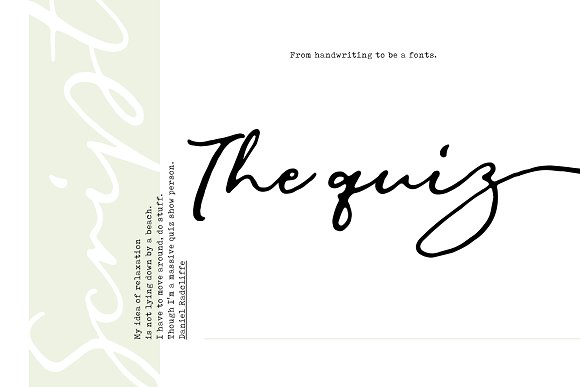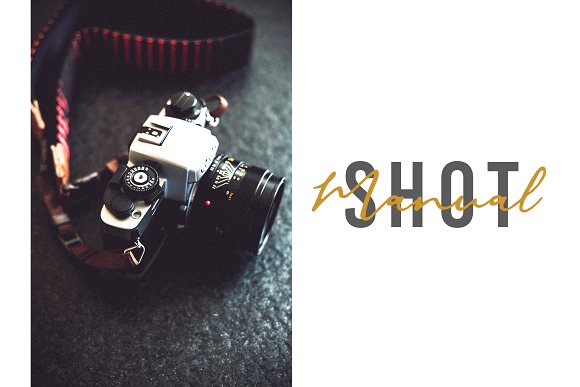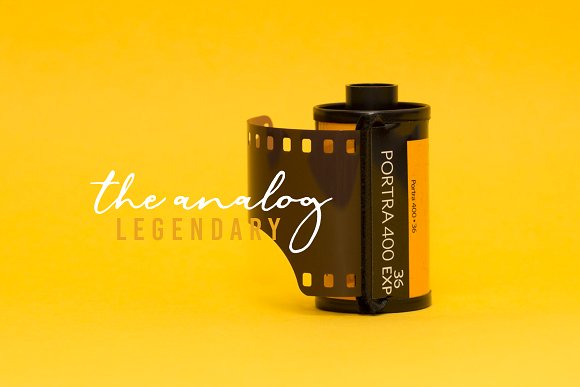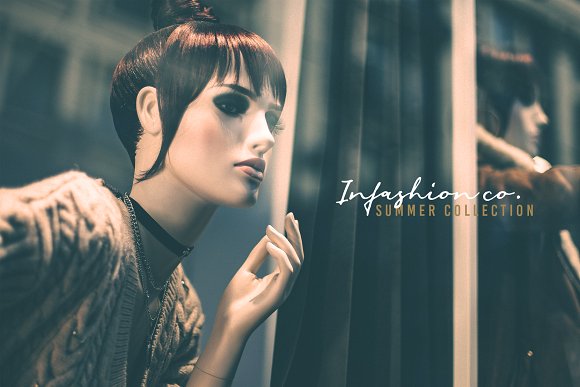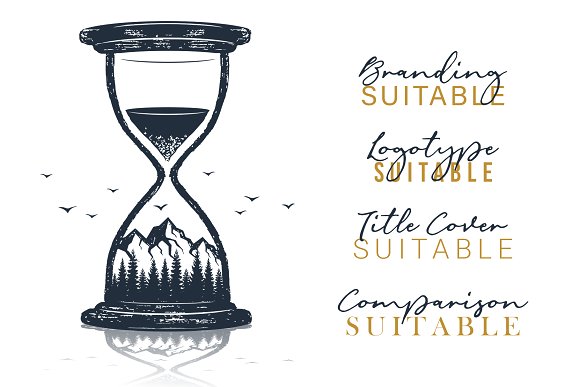
The Quiz Script is an handwriting typeface. For designers, instagramers, bloggers, youtubers, fashion lovers or somebody who Loves Fresh design.
Every creative love something new. Thats why We love handmade and freestyle designs, because it will make something Unique, Fresh and Natural. So here we are, The Quiz Scrip Fonts ready to make your design can be shining again.
The Quiz ScripT suitable for any modern design such as for ad banner, modern card, invitation, announcement, seasonal design, social media promotion, web design, branding and logo stylist and many more.